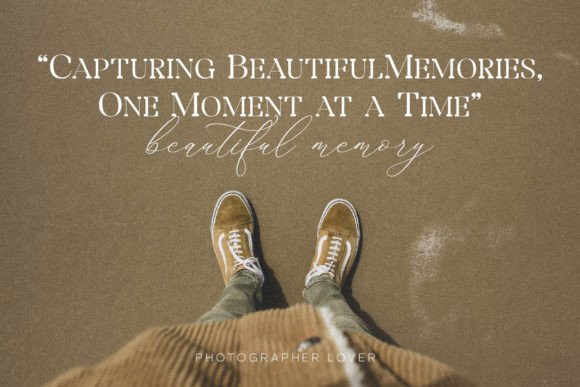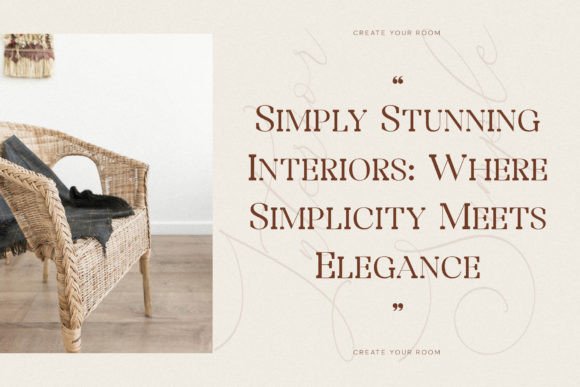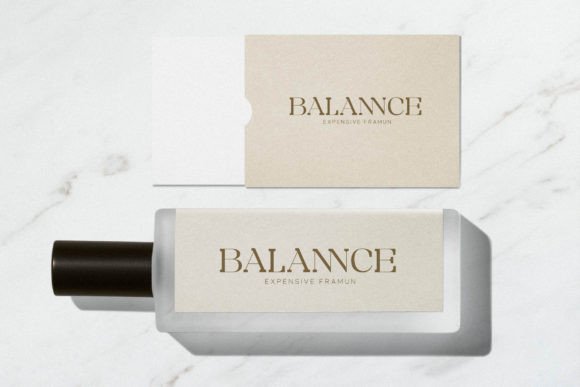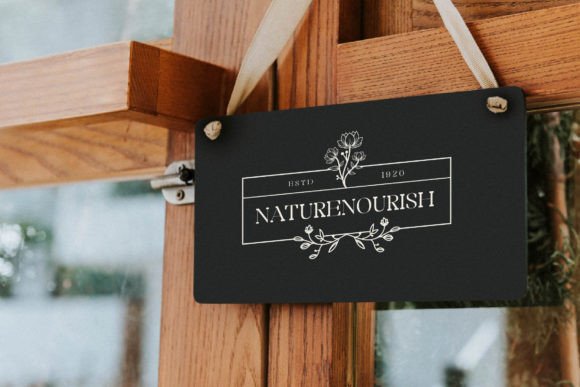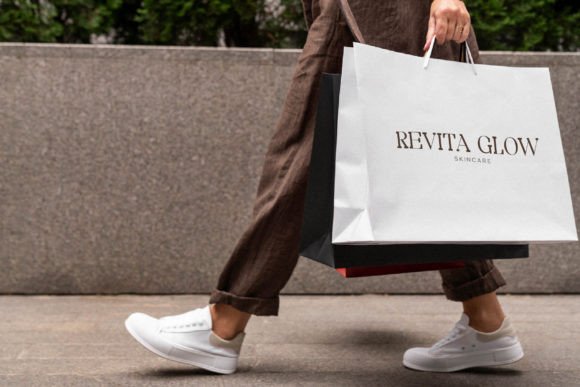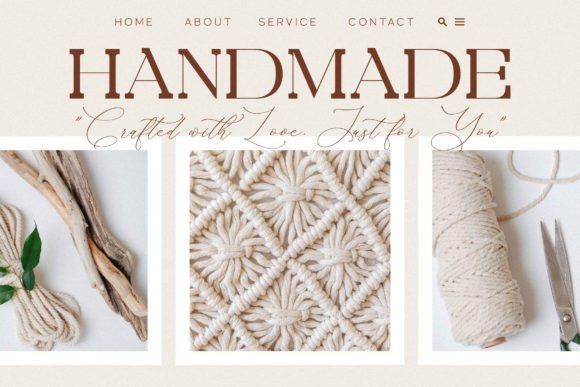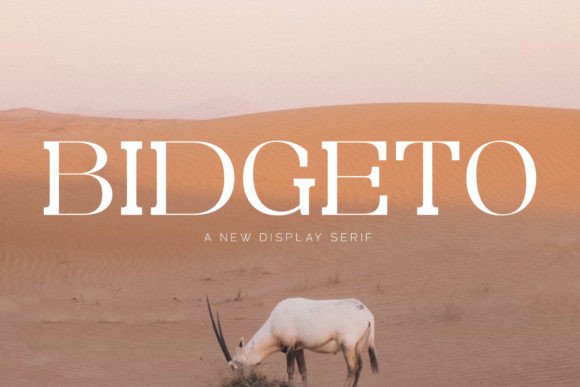
Bidgeto Font: Elevate Your Designs with Elegance and Sophistication
In the world of typography, a font can make or break a design. For designers and crafters seeking to add a touch of luxury and sophistication to their work, Bidgeto Font is an exceptional choice. This modern and classic serif typeface boasts a unique style that effortlessly blends traditional elegance with a modern aesthetic.
The Versatility of Bidgeto Font
Bidgeto Font is incredibly versatile, making it suitable for a wide range of applications. Whether you’re working on an elegant logo, a book or movie title design, a fashion brand, a magazine, or even a clothing line, Bidgeto Font is the perfect companion. Its classic serif structure provides a sense of timelessness, while its modern twists ensure it remains fresh and contemporary.
Key Features of Bidgeto Font
- Unique Style: Bidgeto Font features a distinctive style that sets it apart from other serif typefaces. Its unique flair makes it instantly recognizable and can add a memorable touch to any design.
- Modern and Classic: The font strikes a perfect balance between modern aesthetics and classic serifs, making it adaptable to various design needs.
- Elegant and Luxurious: Bidgeto exudes elegance and luxury, making it an ideal choice for high-end branding, editorial designs, and more.
- High Versatility: From logos and titles to magazines and clothing designs, Bidgeto Font’s versatility knows no bounds.
Applications of Bidgeto Font
The applications of Bidgeto Font are vast and varied. Here are some of the most notable uses:
- Elegant Logos: Create a lasting impression with a logo that embodies sophistication and elegance.
- Book and Movie Titles: Add a touch of class to your book covers or movie posters with Bidgeto’s distinctive style.
- Fashion Brands: Elevate your fashion brand with a font that speaks luxury and style.
- Magazines: Stand out in the world of publishing with a magazine that boasts a clean, elegant, and modern look.
- Clothing Designs: From labels to advertising materials, Bidgeto Font can add a sophisticated touch to your clothing line.
- Lettering and Quotes: Create beautiful lettering pieces or quote designs that are both impactful and aesthetically pleasing.
Why Choose Bidgeto Font?
With so many fonts available, why choose Bidgeto? The answer lies in its ability to bring a unique blend of modernity and classic elegance to your designs. Bidgeto Font is not just a typeface; it’s a design statement that can elevate your work and make it stand out in a crowded marketplace.
Tips for Using Bidgeto Font
To get the most out of Bidgeto Font, consider the following tips:
- Pair with Simplicity: Let Bidgeto be the star of your design by pairing it with simpler fonts or backgrounds.
- Experiment with Sizes: Play with different sizes to create visual hierarchy and emphasis.
- Adjust Letter Spacing: Fine-tune the letter spacing to ensure optimal readability and aesthetic appeal.
Bidgeto Font is a powerful tool for designers and crafters looking to add a touch of elegance and sophistication to their work. Its unique blend of modern and classic elements, combined with its versatility, makes it an excellent choice for a wide range of design projects. Whether you’re aiming to create a luxurious brand image, an elegant book cover, or a stylish magazine, Bidgeto Font is sure to deliver.
Embrace the world of Bidgeto Font and discover how this exceptional typeface can transform your designs into timeless pieces of art.